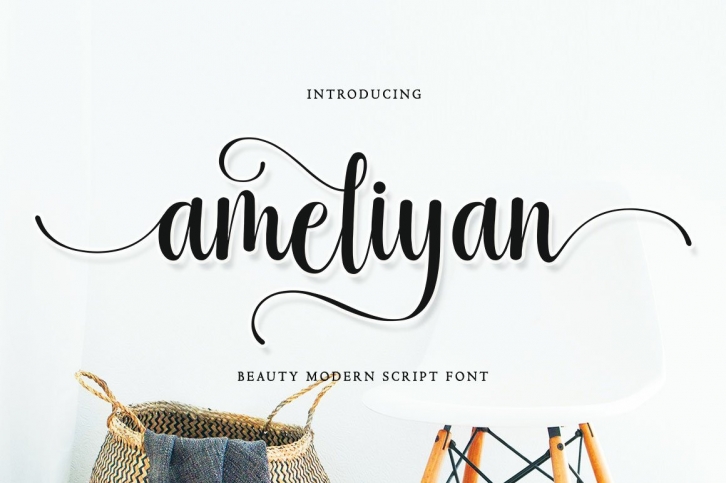
Ameliyan is a great font that was designed by Kartiny Type. Imagine the amount of combinations you can create using this font! The archive is 17.39 MB and it was released on October 15, 2022. Ameliyan looks beautiful on wedding invitations, greeting cards, logos, posters, labels, t-shirt designs, logos, business cards and is perfect for use in ink or watercolor works, fashion, magazines, packaging and food menus, children's books and more!